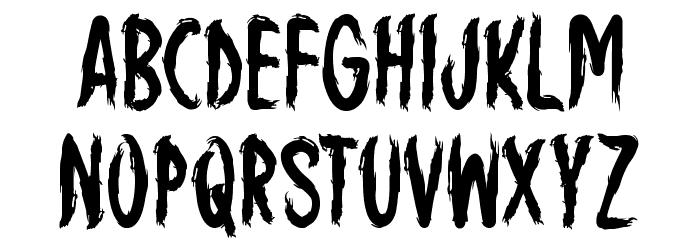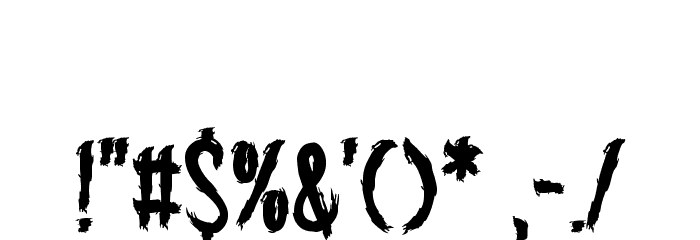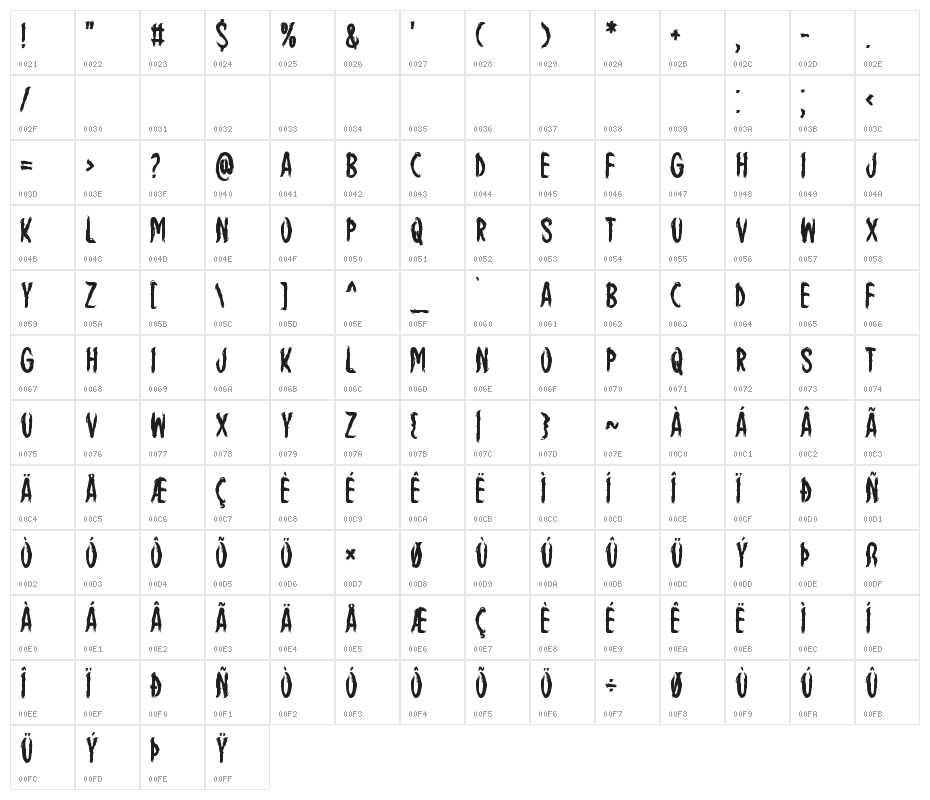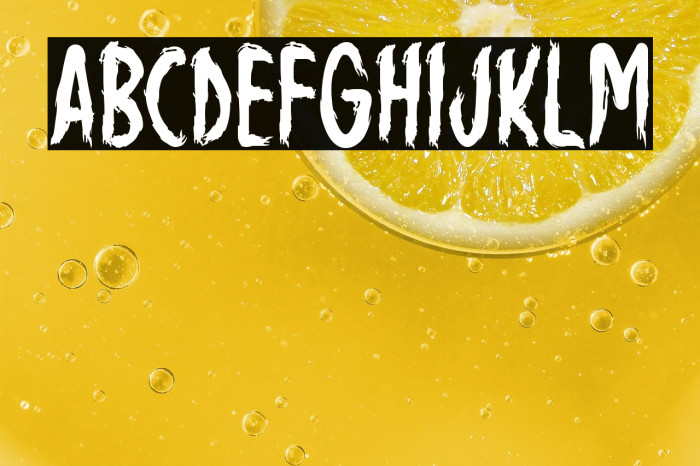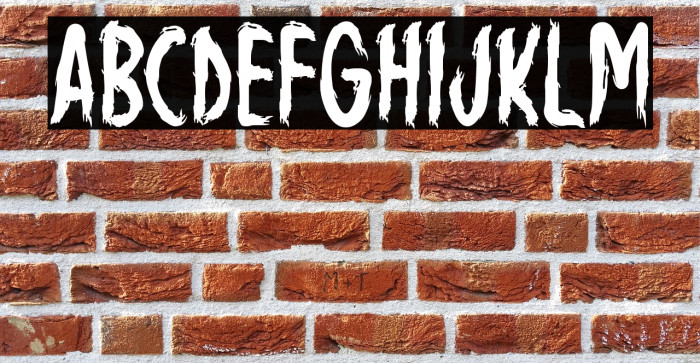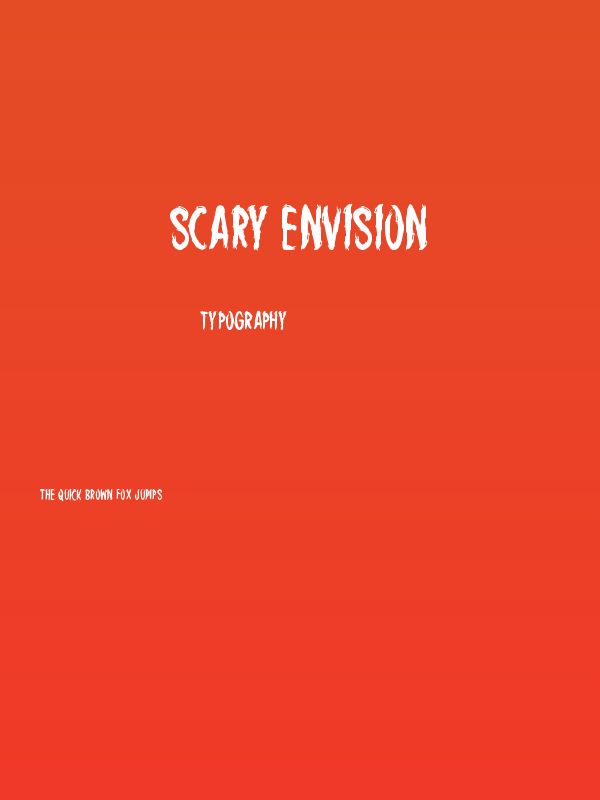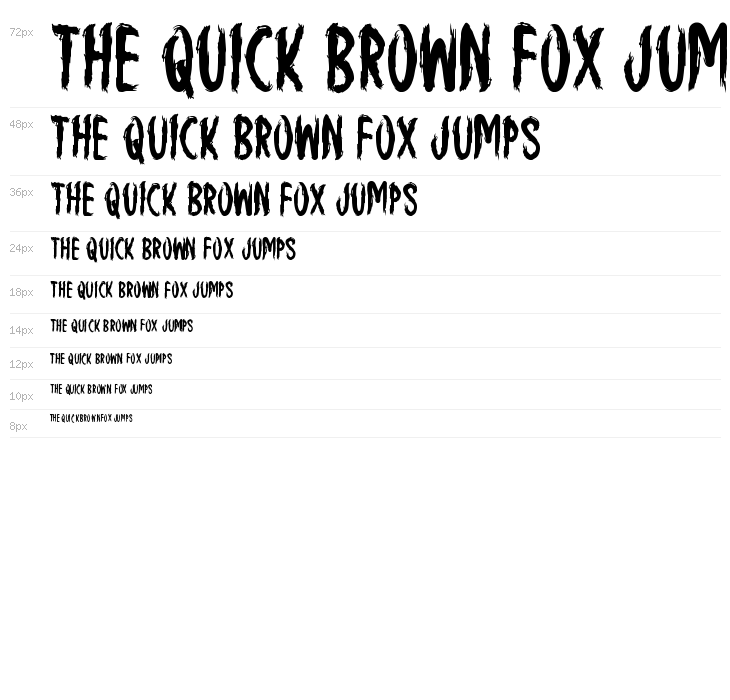
Scary Envision Font
This font exudes a chilling and eerie vibe, perfect for Halloween or horror-themed projects. The letters are jagged and irregular, resembling claw marks or dripping ink, which adds to its unsettling appearance. The uppercase and lowercase characters maintain a consistent style, with sharp edges and uneven strokes that create a sense of movement and chaos. The numbers and special characters follow the same design principles, ensuring a cohesive look across all text elements. This font is ideal for creating eye-catching headlines, posters, and graphics that need a spooky touch.
A jagged, eerie font ideal for horror themes and Halloween designs.
- Font: Scary Envision
- Proposed Projects: Halloween posters, horror movie titles, spooky event invitations, themed merchandise.